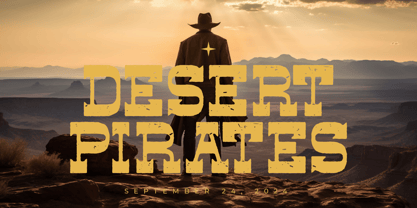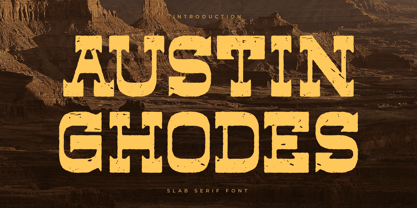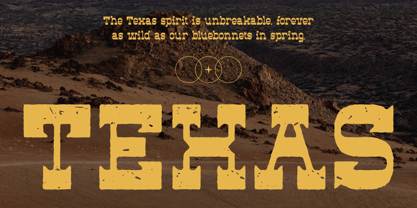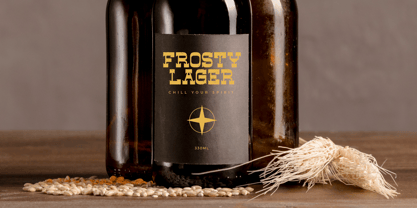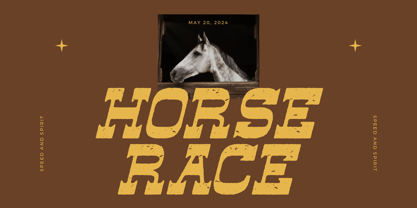
Austin Ghodes
by Letterena Studios
The Austin Ghodes Font Family was designed by Heru Utama Putra and published by Letterena Studios. Austin Ghodes contains 1 styles. More about this family
Austin Ghodes – Slab Serif Font , from Letterena, is a Luxury Serif font, suitable for any projects such as: logos, branding projects, homeware designs, product packaging, mugs, quotes, posters, shopping bags, t-shirts, book covers, name card, invitation cards, greeting cards, label, photography, watermark, special events, and all your other luxury and beautiful projects that need a Luxury serif taste.